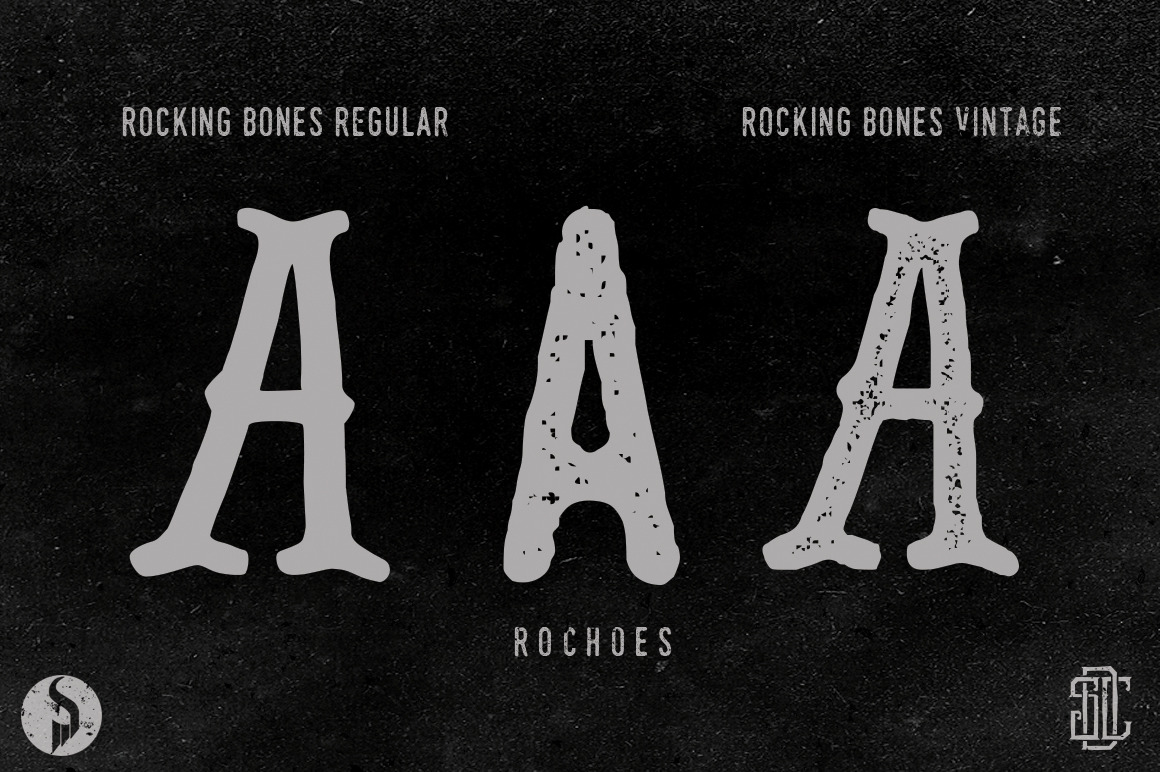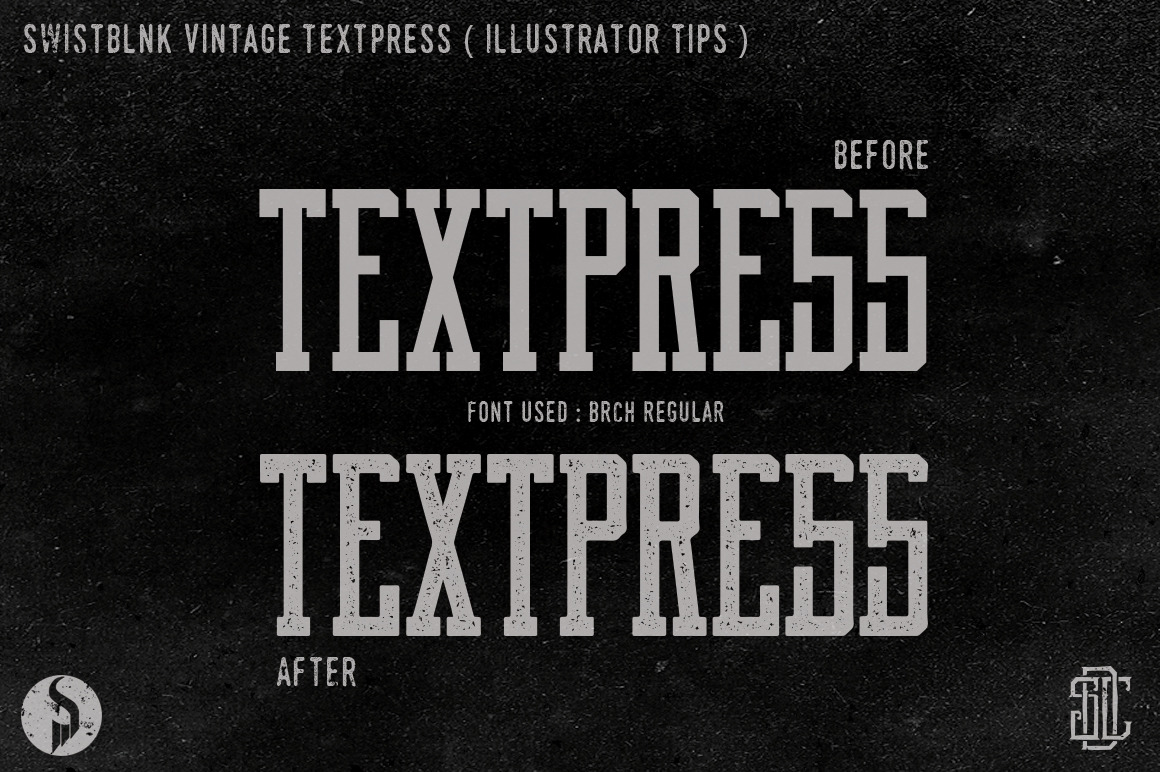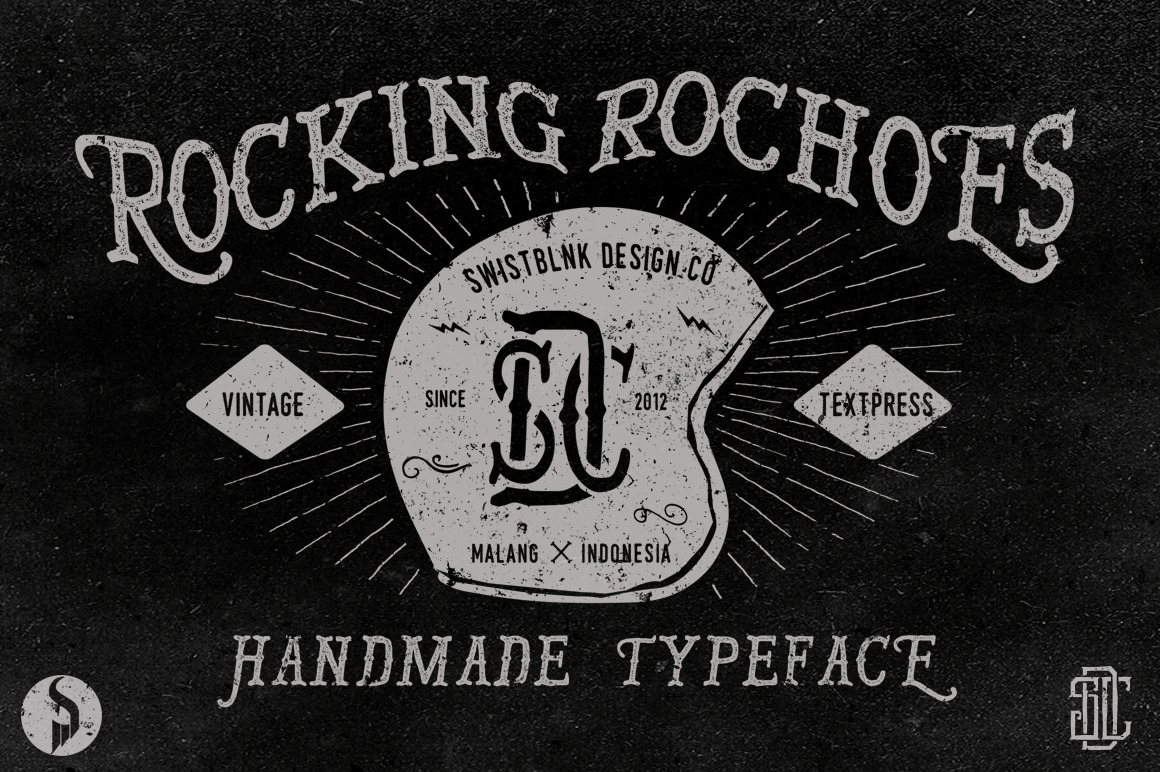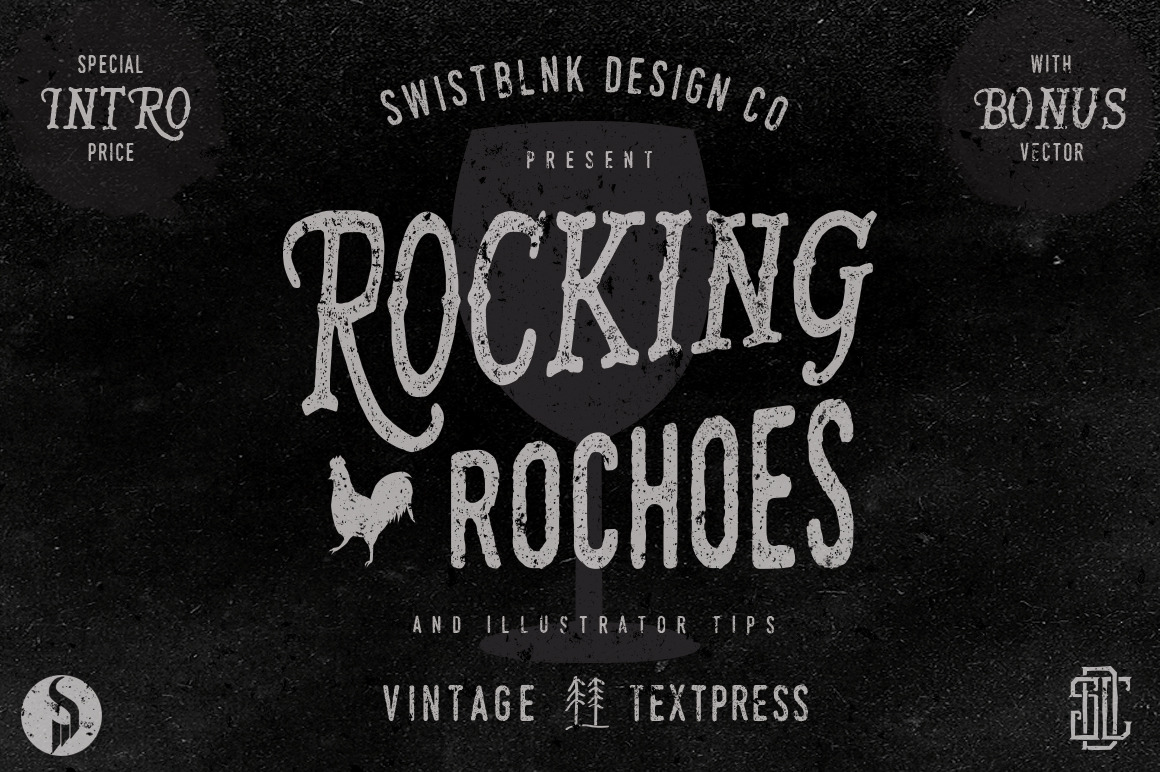
Rocking Rochoes Typeface
Rocking Rochoes Typeface excels in rock band merchandise, music festival posters, concert venue signage, album cover designs, guitar store branding, music club promotions, punk fashion labels, independent record label logos, rock radio station graphics, and rebellious youth culture campaigns. This electrifying typeface brings raw musical energy and rock-and-roll attitude to any music-driven design project.
Rocking Rochoes Typeface is exciting because it captures the rebellious spirit and electrifying energy of rock music with its bold, dynamic letterforms that seem to vibrate with musical intensity. Its edgy character instantly conveys the raw power, freedom, and unapologetic attitude that defines authentic rock culture.
The Rocking Rochoes Typeface family includes Regular, Bold, and Heavy weights with distressed variants, grunge textures, and rough-edged alternatives that enhance the rock aesthetic, providing designers with comprehensive tools for creating authentic rock-and-roll typography that feels genuinely rebellious and energetic.
Music marketers love Rocking Rochoes Typeface for its exceptional ability to connect with rock audiences and create immediate associations with musical energy, creative freedom, and authentic artistic expression. The font's bold character and dynamic presence resonate perfectly with fans who value musical integrity, creative independence, and the transformative power of rock music.
The design philosophy behind Rocking Rochoes Typeface celebrates the democratizing force of rock music and its ability to give voice to youth culture, creative rebellion, and authentic self-expression. Creative teams working on music festivals, band promotions, or alternative culture brands find this font particularly effective for establishing credibility within rock music communities.
Whether used for underground music venues, rock band merchandise, or alternative music streaming platforms, Rocking Rochoes Typeface delivers the perfect combination of musical authenticity and rebellious energy. Its rock-solid appeal and counter-culture credibility make it an essential choice for brands that celebrate the transformative power of music and the enduring spirit of rock-and-roll freedom.